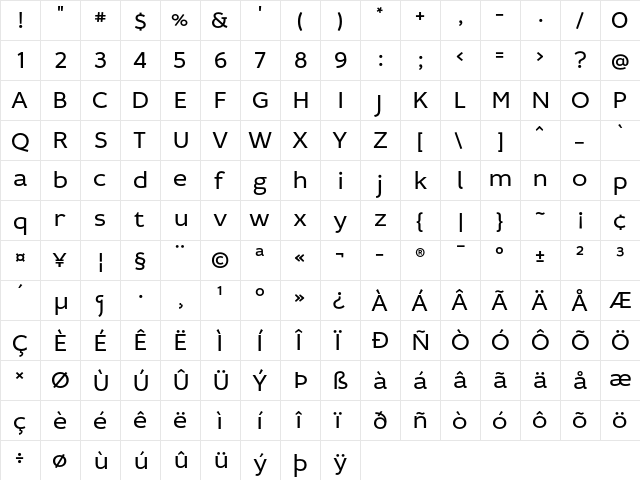
Idealist Sans Regular
| Designer | Glenjan |
Design Context for Idealist Sans Typeface
Idealist Sans takes a measured approach to typography — its balanced proportions and neutral character make it a reliable workhorse for both digital and print work.